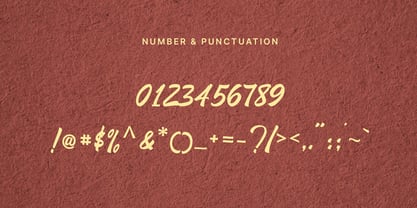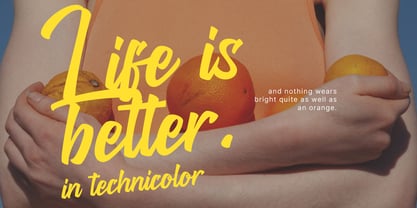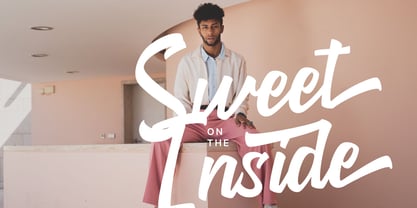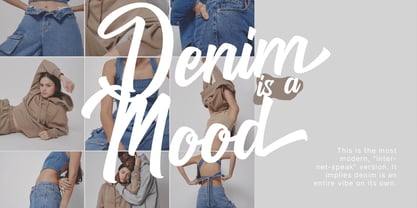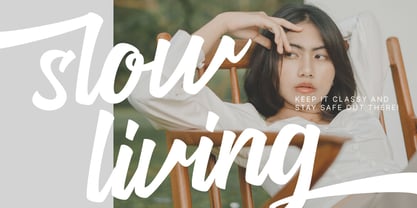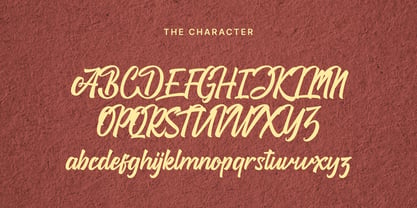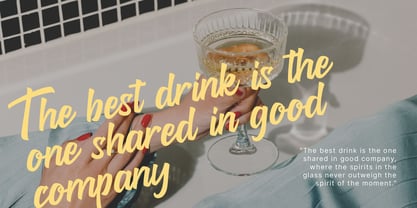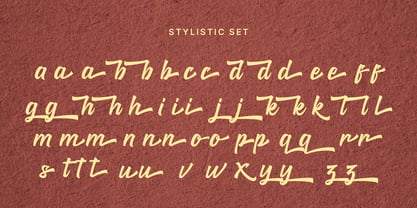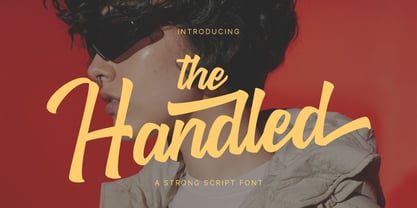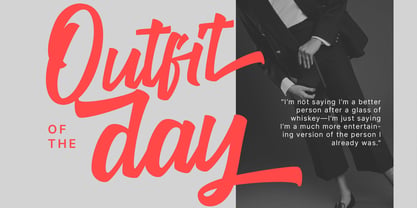
The handled
by Gatype
The The handled Font Family was designed by khaidir and published by Gatype. The handled contains 1 styles. More about this family
The Handled is a typeface or font design that can be used to style text. It is characterized by tails and is slightly cursive, often giving the appearance of playful or relaxed text. The Handled is widely used for design projects such as invitations, greeting cards, posters, headers or just used to express words over the background. Displayed fonts: Uppercase, Lowercase, Numbers, Symbols, Accents, Styles, Swashes and Ligatures also Multilingual Support Enjoy the font.
Designers: khaidir
Foundry: Gatype